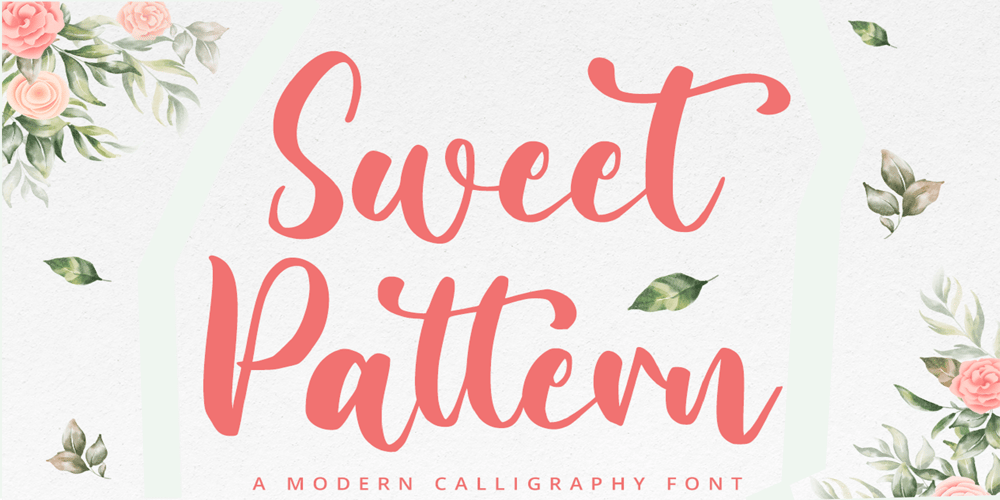
Sweet Pattern Font Family was designed by Heri Imanudin and published by Krafted. Sweet Pattern contains 1 styles and family package options. Sweet Pattern, just as sweet as flowers, flawless as you! A perfect font for your minimal yet beautiful website, social media branding, Pinterest banners, printed invitations, and more!Sweet Pattern fonts, like a fragrance, speak your heart, your audience’s, clients and guests and people around you!What you’ll get: Multilingual & Ligature Support Full sets of Punctuation and Numerals Compatible with: Adobe Suite Microsoft Office KeyNote Pages Software Requirements: The fonts that you’ll receive in the pack are widely supported by most software. In order to get the full functionality of the selection of standard ligatures (custom created letters) in the script font, any software that can read OpenType fonts will work. We hope you enjoy this font and that it makes your branding sparkle! Feel free to reach out to us if you’d like more information or if you have any concerns.